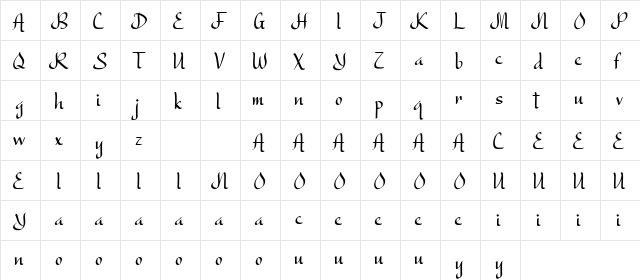
Blessed Eid Demo Regular
Design Context for Blessed Eid Demo Typeface
Blessed Eid Demo is a composed and adaptable typeface that performs quietly and consistently across a wide range of design contexts.